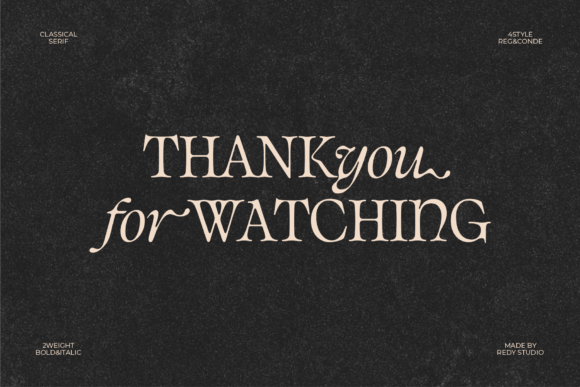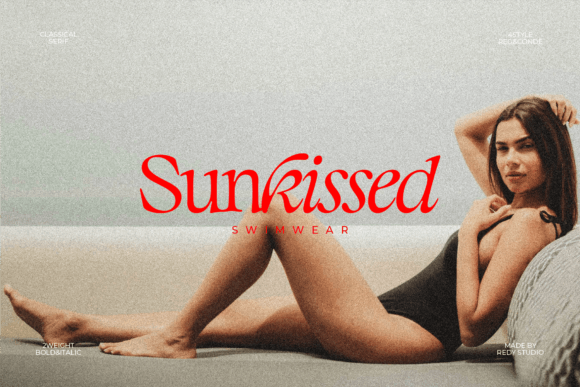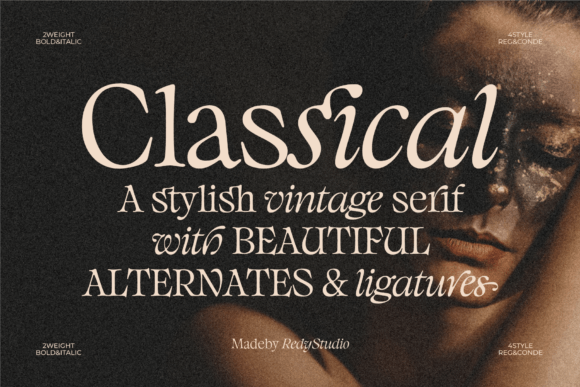
Classical Font Family
Classical Font Family A brand new Classic Typeface with alternative characters, multilingual support, and unique ligatures.
These Classical serif fonts have an unbalanced character shape, with unequal ascender, descender, and x heights. This imbalance makes the font look Classic and elegant.
Classical serif fonts can impress us with Classic Style by accessing alternative letters & unique ligatures in Opentype Features. You can showcase an elegant typography style by simply adjusting the spacing between the letters.
Classical serif fonts are very versatile fonts. Perfect for branding projects, logos, magazine imagery, wedding invitations, posters, clothing, packaging, website headers, or simply as stylish text overlays to any background image.